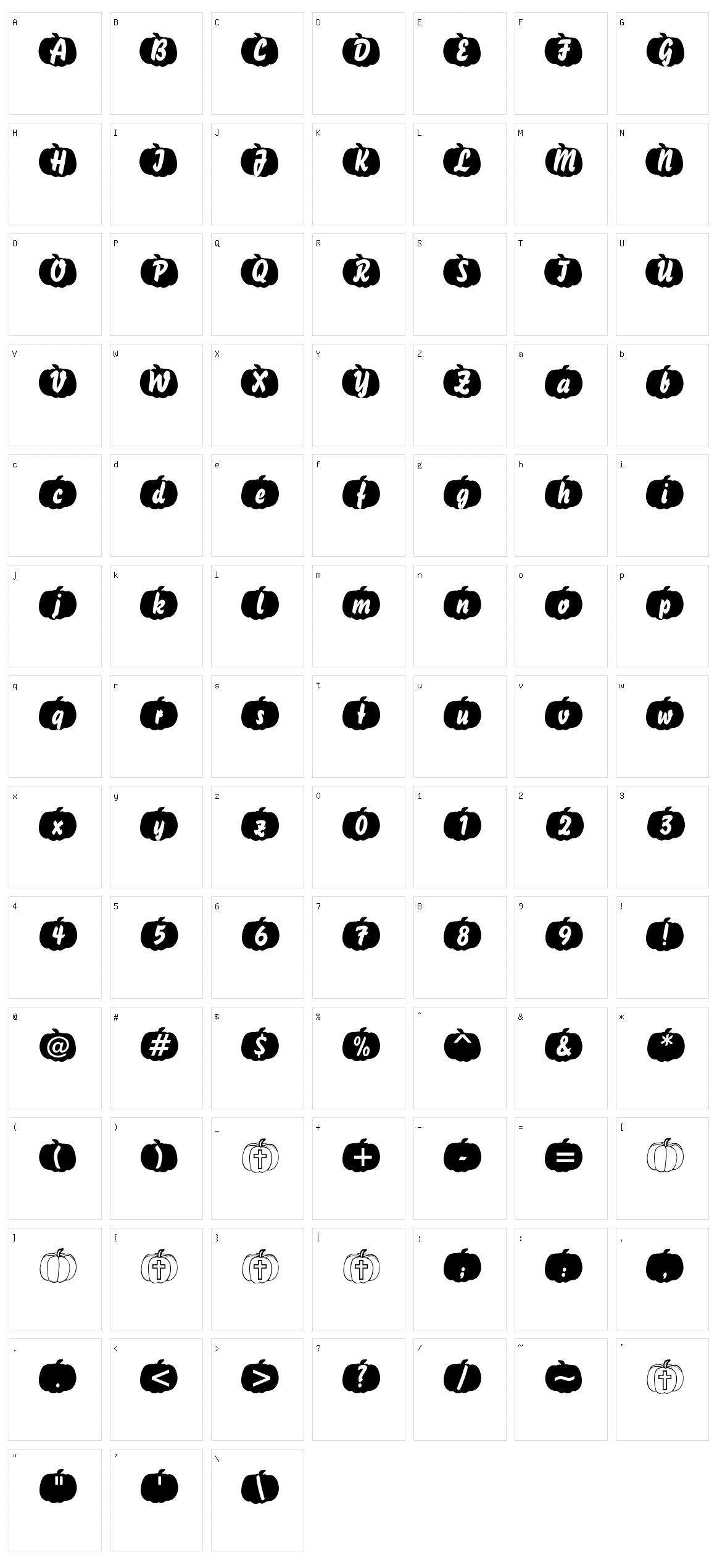
The free font Pumpkinese is carefully designed by Tim Watkins, showcasing a thoughtful balance of creativity and usability and falls under the Halloween font style. When you download the ZIP file, it contains only 20.19 KB of font files, making it lightweight and quick to download. Please review the license details below to understand permitted usage and distribution rights. If license information is not available, we recommend using this font for personal projects only or contacting the author directly for commercial usage permissions.